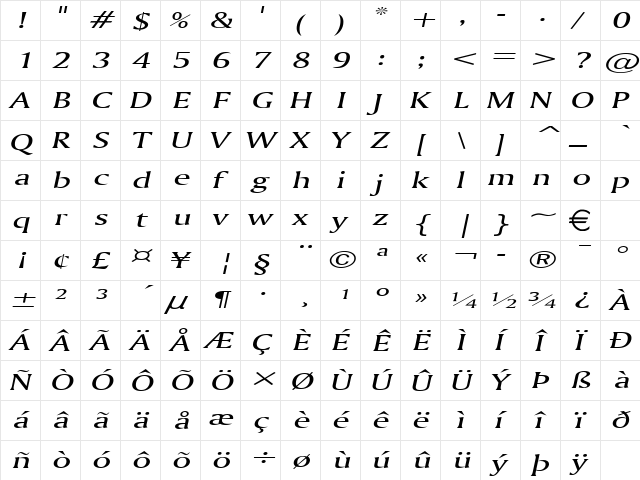
AmerettoExtended Italic Font Preview
AmerettoExtended Italic
AmerettoExtended Italic Font Details
Design Context for AmerettoExtended Typeface
AmerettoExtended is a composed and adaptable typeface that performs quietly and consistently across a wide range of design contexts. Its italic angle brings a sense of urgency and motion to the letterforms.
Pro Tip: Try AmerettoExtended for annotation and caption copy alongside an upright companion — the contrast in angle creates a dynamic but ordered typographic system.